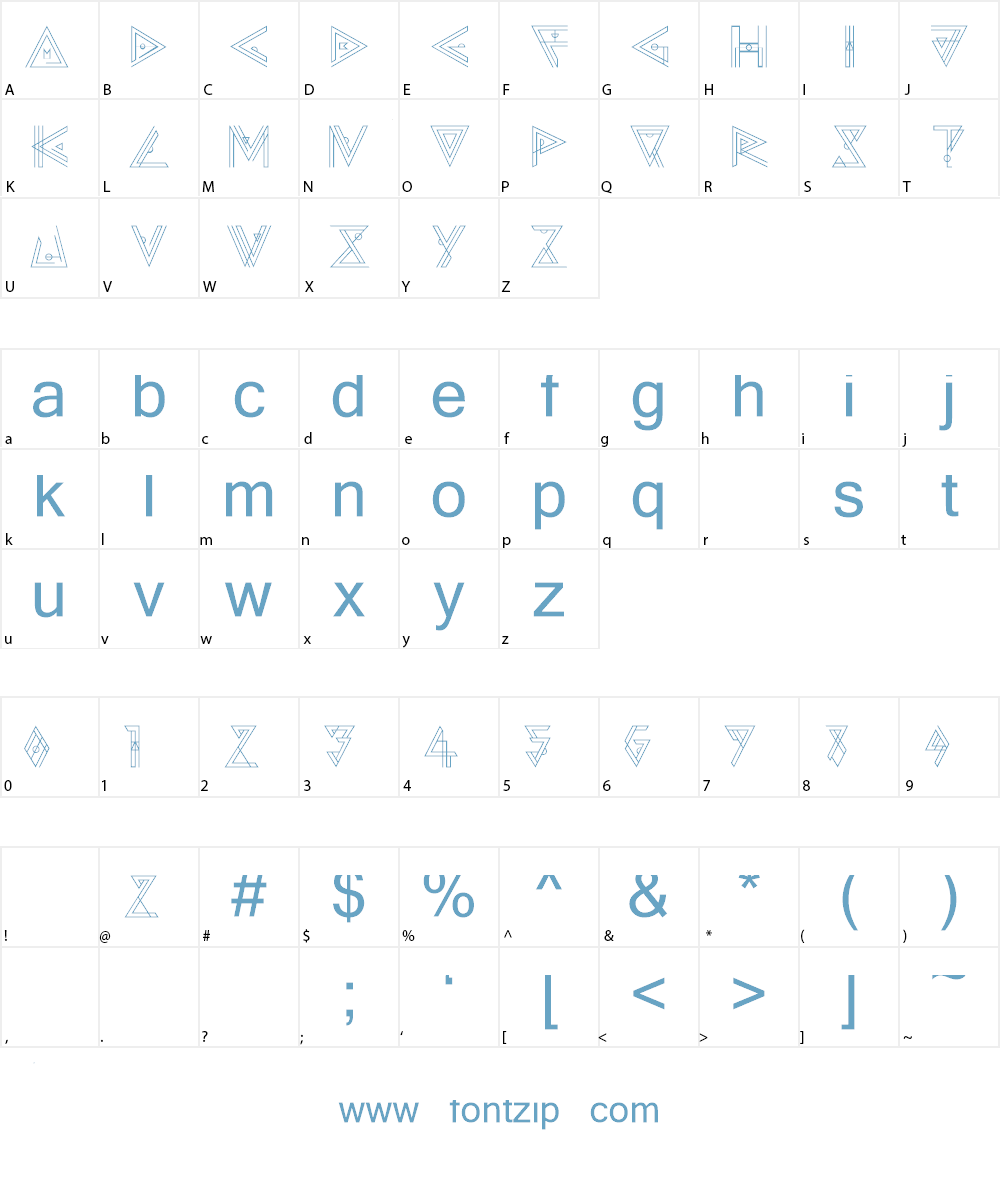
'Queen of Serpents' font design is based on Lithuanian mythology tale 'Egle the Queen of Serpents'. Various mythological shapes and symbols were used for it. The purpose of this font is to reflect the history of Pagan Lithuania with added modern twist.